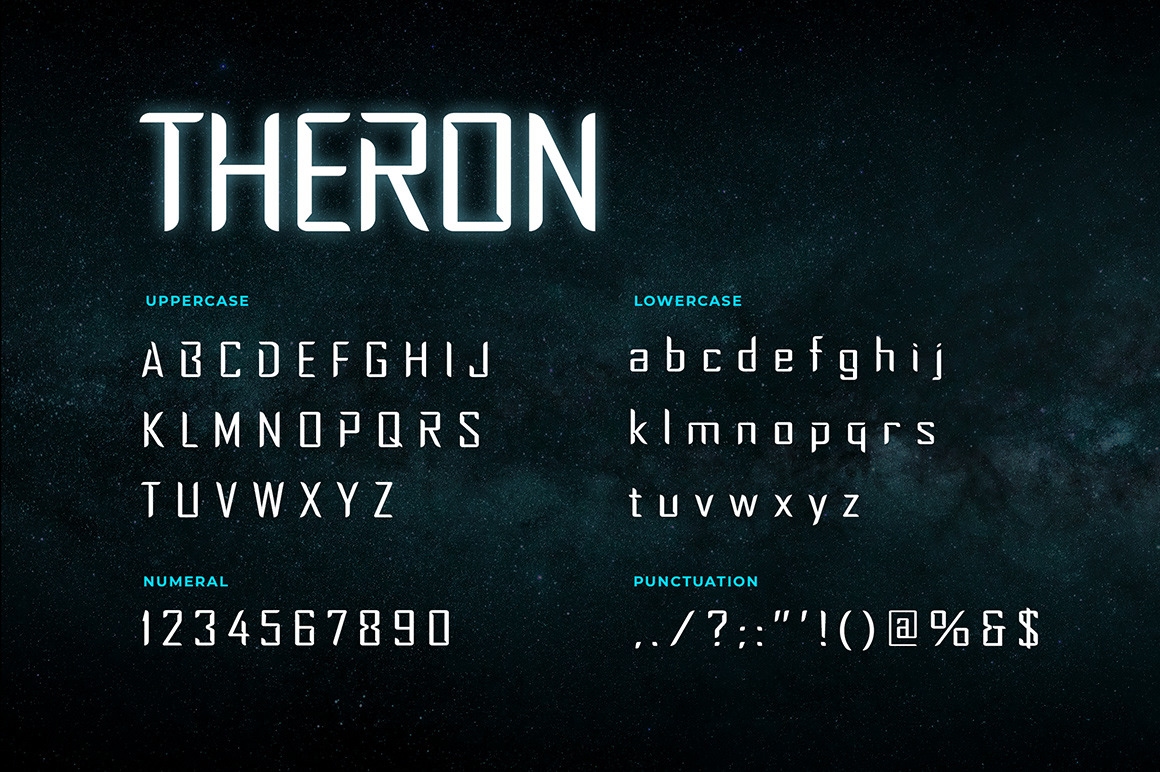
Theron Sci-fi Font
Theron is a Sci-fi style display font, inspired by space movies and available superhero fonts
This font is also suitable for clothing brands, product labels, logotypes, packaging, websites, movie titles, comics, book covers, and more.
Main feature:
+ Uppercase & Lowercase letters
+ Numbering and Punctuation